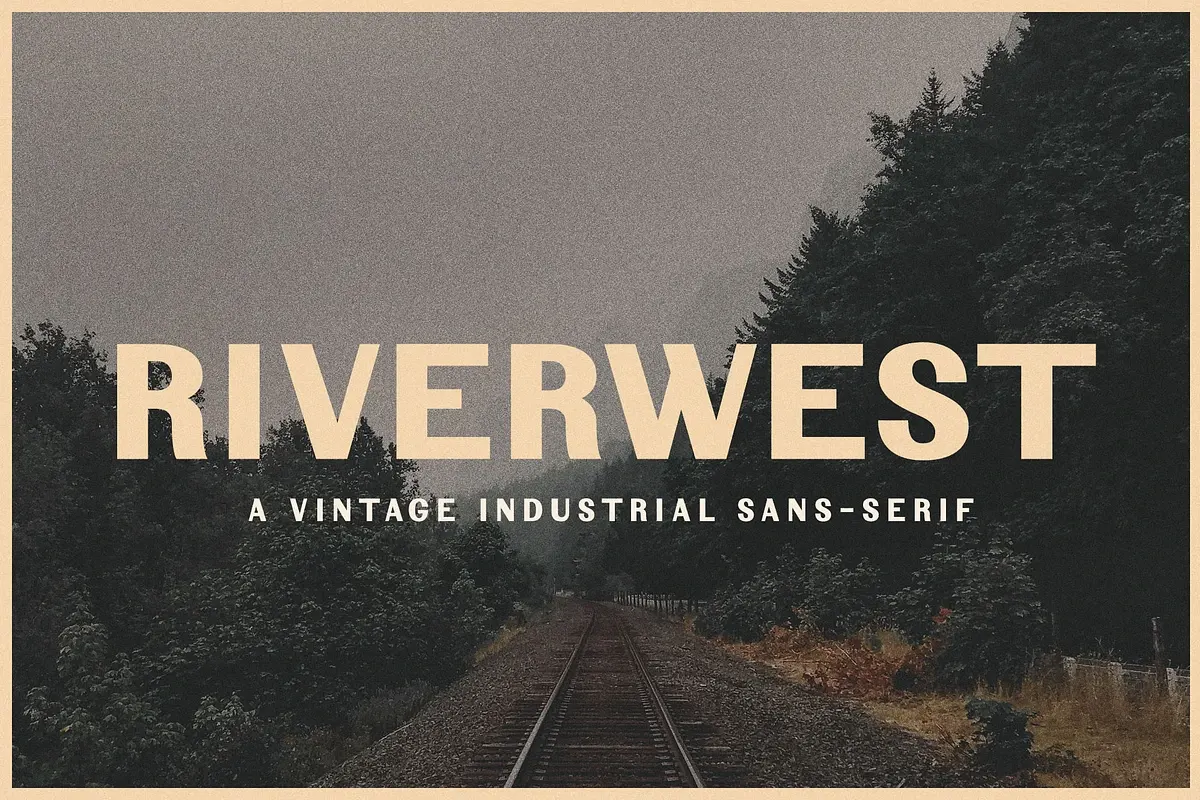
Introducing Riverwest, a vintage industrial sans serif typeface inspired by 19th-century maps and posters. Designed by Alan, Riverwest captures the antique feel of old letterpress printing, making it ideal for creating vintage designs
Styles Included: Regular and Outline
Character Set: Uppercase letters, numerals, basic punctuation, and some alternate characters
Riverwest is perfect for designing vintage maps, logos, branding materials, and any project requiring a classic, industrial touch. Its unique design adds authenticity and historical flair to your creative endeavors.